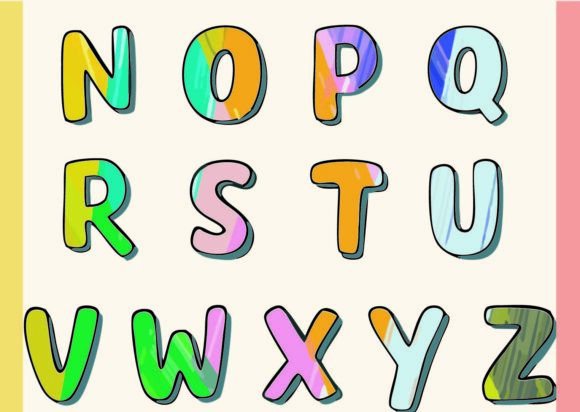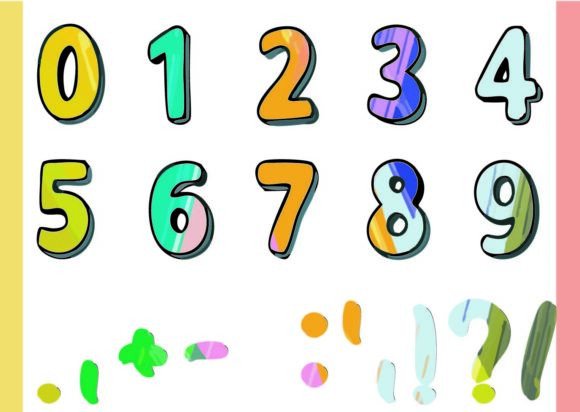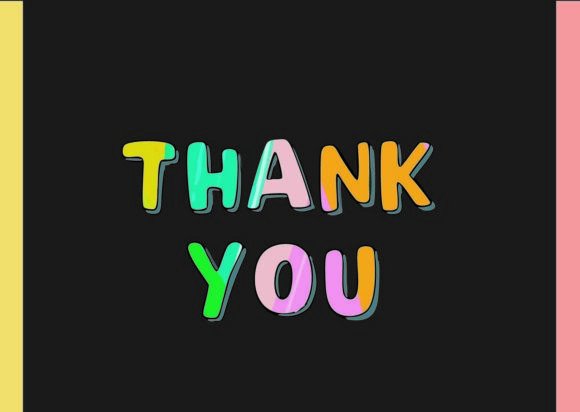
Introducing Harmony Font: A Colorful Heaven for Designers and Crafters
Are you tired of traditional fonts and looking for a way to add some vibrancy to your designs? Look no further than Harmony Font, a revolutionary color font that is taking the design world by storm. In this article, we’ll explore what makes Harmony Font so unique and how you can use it to take your designs to the next level.
What is Harmony Font?
Harmony Font is a chromatic font, meaning that every single glyph has a different set of colors. This results in a stunning visual effect that is sure to grab attention. Imagine a font that is not just a collection of letters and numbers, but a work of art in itself. That’s what Harmony Font offers.
A Closer Look at the Glyphs
When you examine the glyphs in Harmony Font, you’ll notice that each one is made up of complex sets of paths and connections. This level of detail is what sets Harmony Font apart from other fonts on the market. Each glyph is like a typographic painting, requiring a high level of skill and craftsmanship to create.
Technical Details: Opentype-SVG and Compatibility
What Can You Do with Harmony Font?
With Harmony Font, the possibilities are endless. Here are just a few ideas to get you started:
- Create stunning social media graphics and posts that are sure to stand out.
- Design beautiful invitations, flyers, and brochures that will leave a lasting impression.
- Add a pop of color to your website or blog with Harmony Font.
- Use Harmony Font to create unique and eye-catching craft projects, such as handmade cards or scrapbooking pages.
Why Choose Harmony Font?
There are many reasons why Harmony Font is a great choice for designers and crafters. Here are just a few:
- Uniqueness: Harmony Font is unlike any other font on the market. Its colorful and intricate design makes it a standout.
- Versatility: Harmony Font can be used for a wide range of projects, from digital designs to craft projects.
Tips for Using Harmony Font
Here are a few tips for getting the most out of Harmony Font:
- Experiment with Different Colors: While Harmony Font looks great as is, you can also experiment with different color combinations to create unique effects.
- Play with Size: Harmony Font looks great at large sizes, but it can also be used for smaller projects, such as captions or quotes.
- Combine with Other Fonts: Harmony Font can be paired with other fonts to create interesting and dynamic text combinations.
| Font Name | Harmony Font |
| Author | merza |